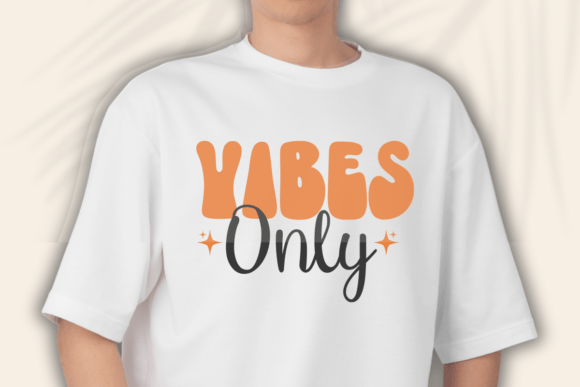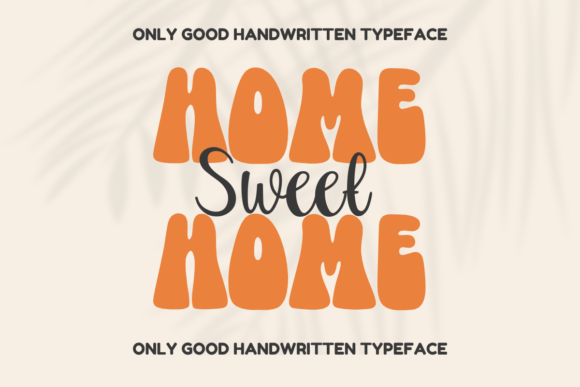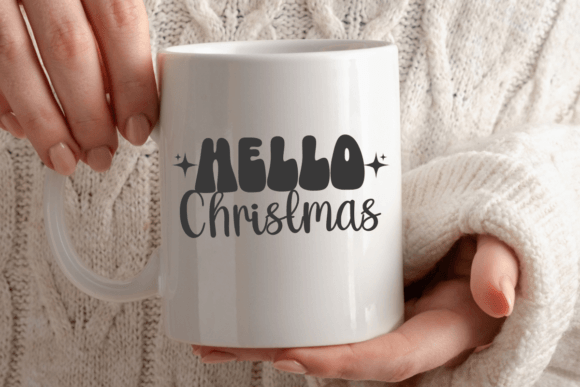
Introduction to Only Good Handwritten Font
Only Good Handwriting font duo is a script and retro font, perfect for good designs.
This font is suitable for t-shirts, wedding invitations, posters, packaging, merchandise, logotypes, and much more .
Why Choose Only Good Handwritten Font?
Only Good Handwritten Font offers exceptional quality and versatility, making it a valuable addition to your design toolkit. Whether you’re creating for personal projects or commercial use, Only Good Handwritten Font delivers professional results.